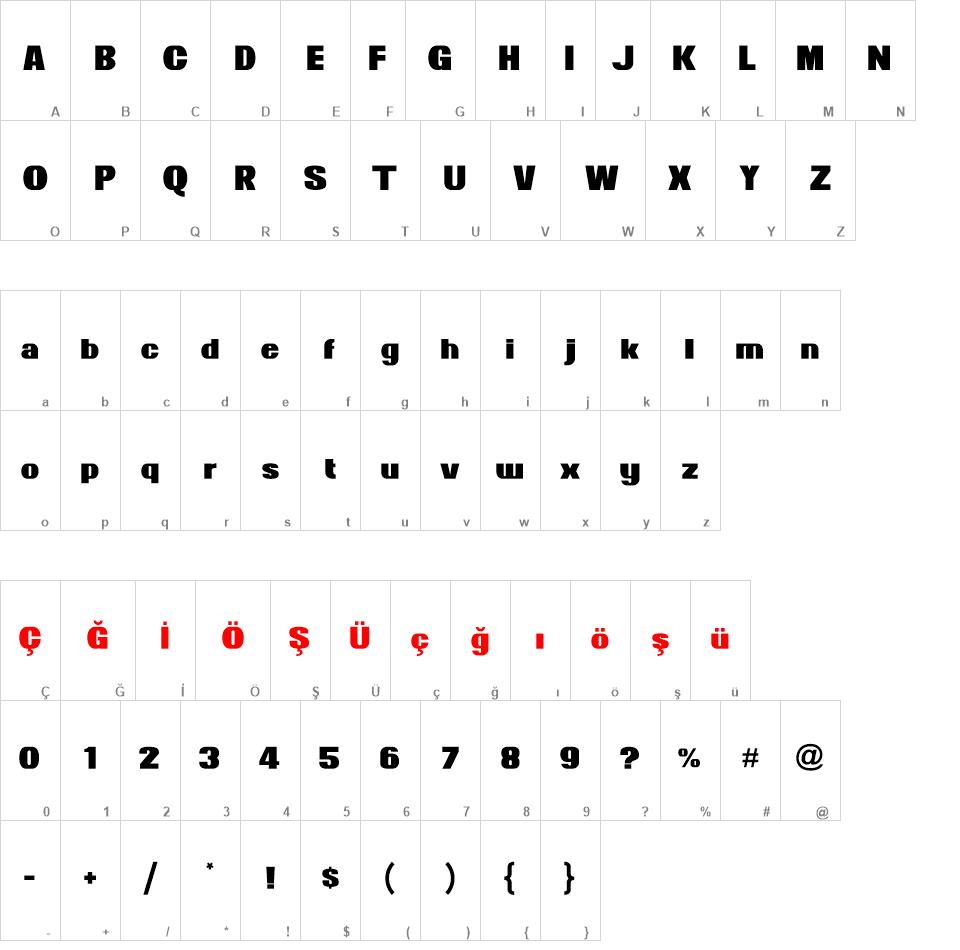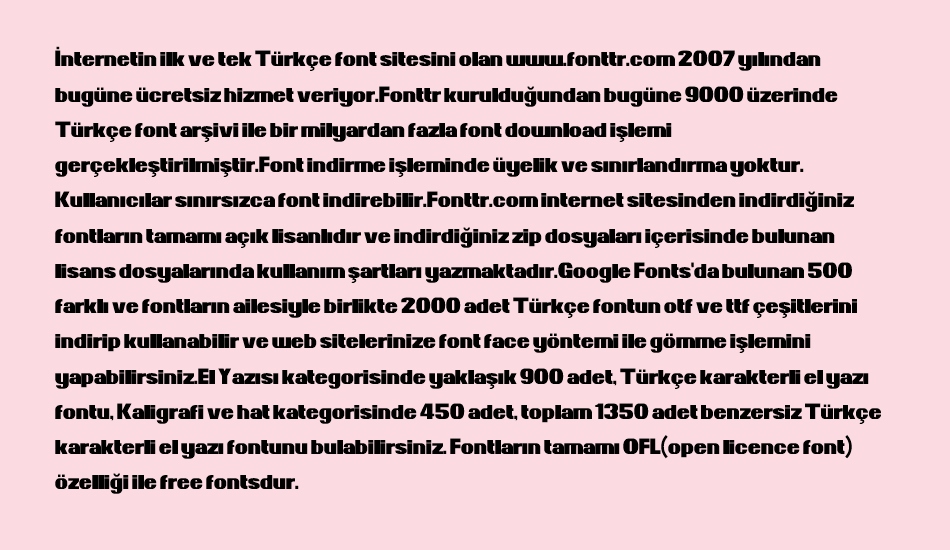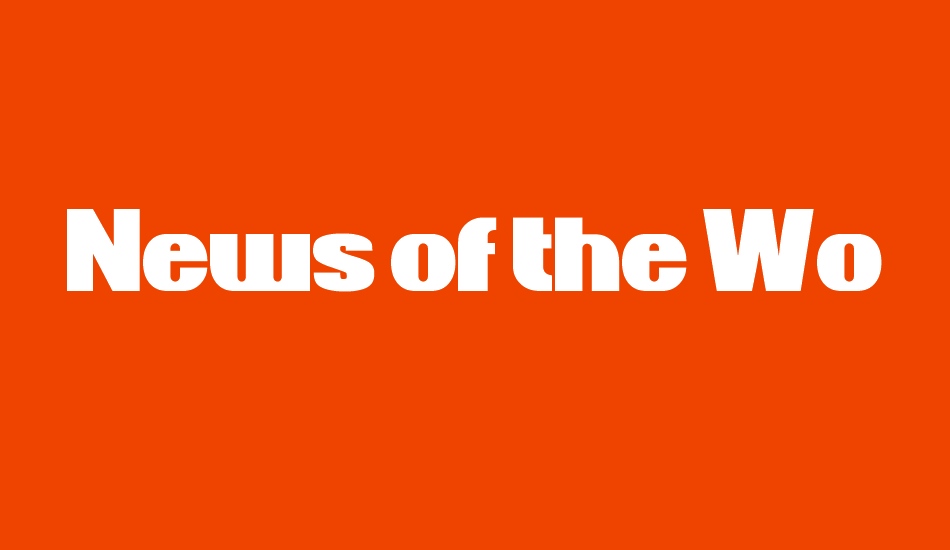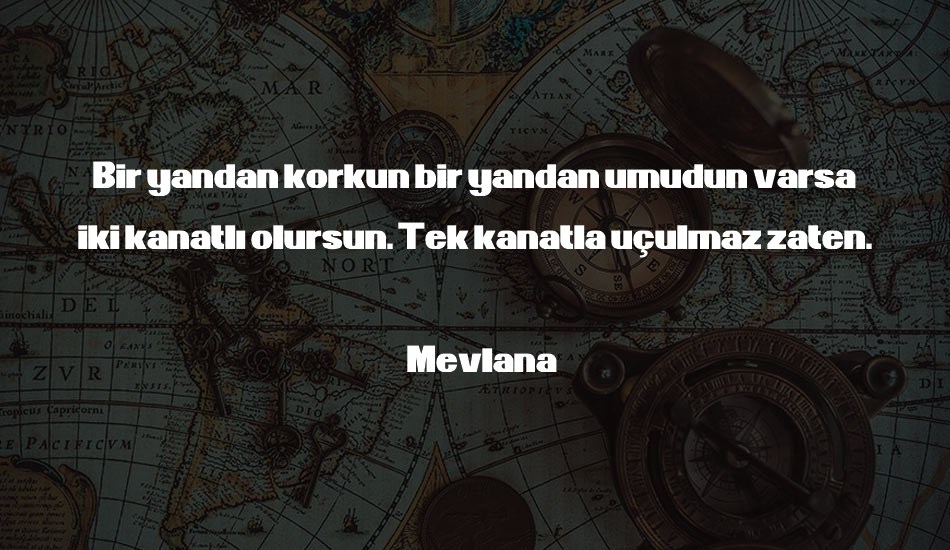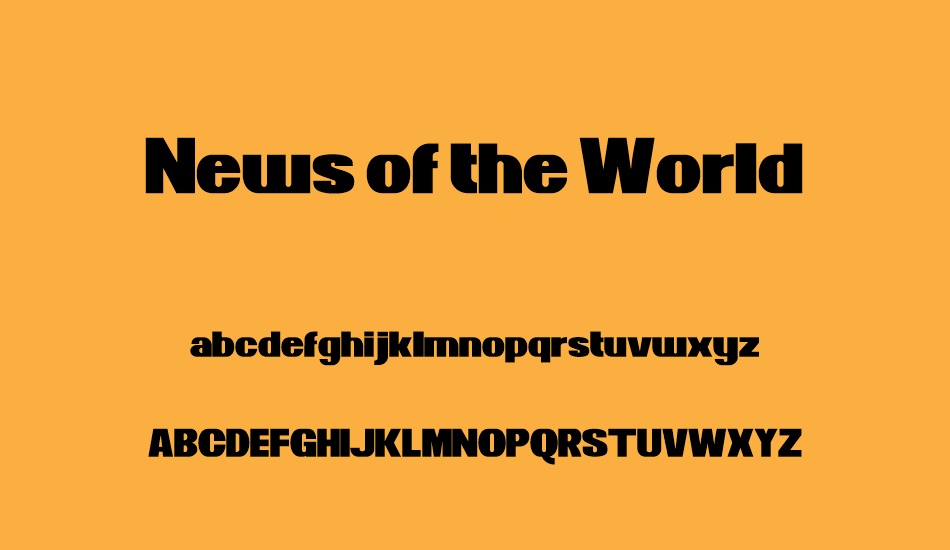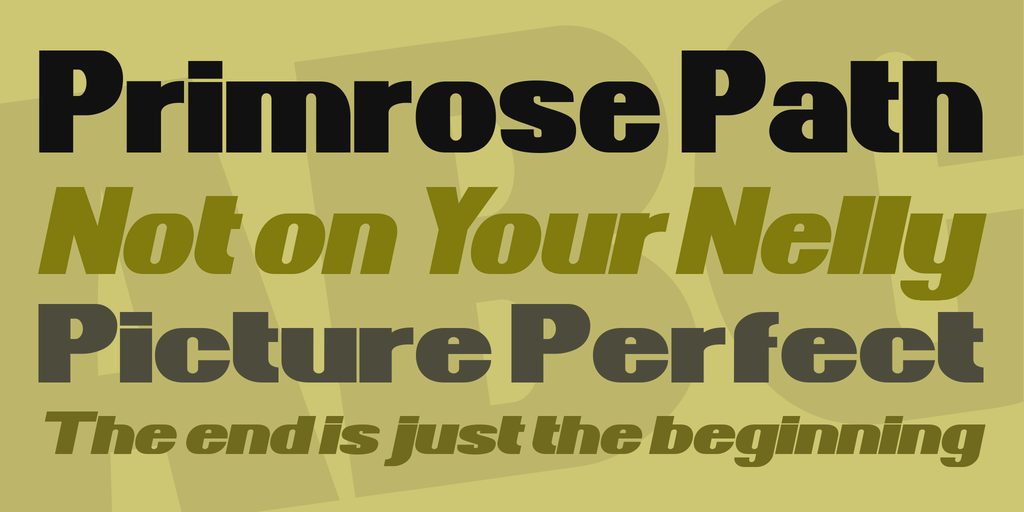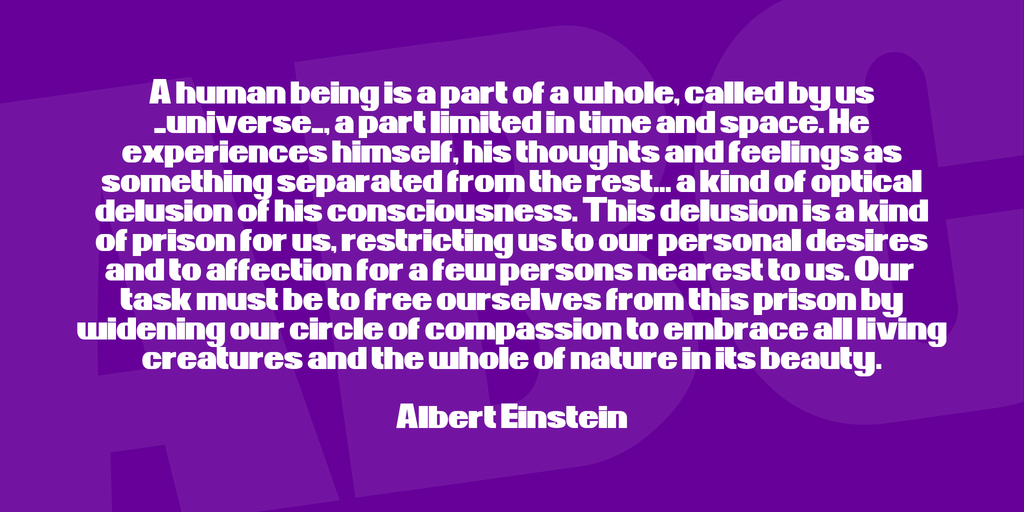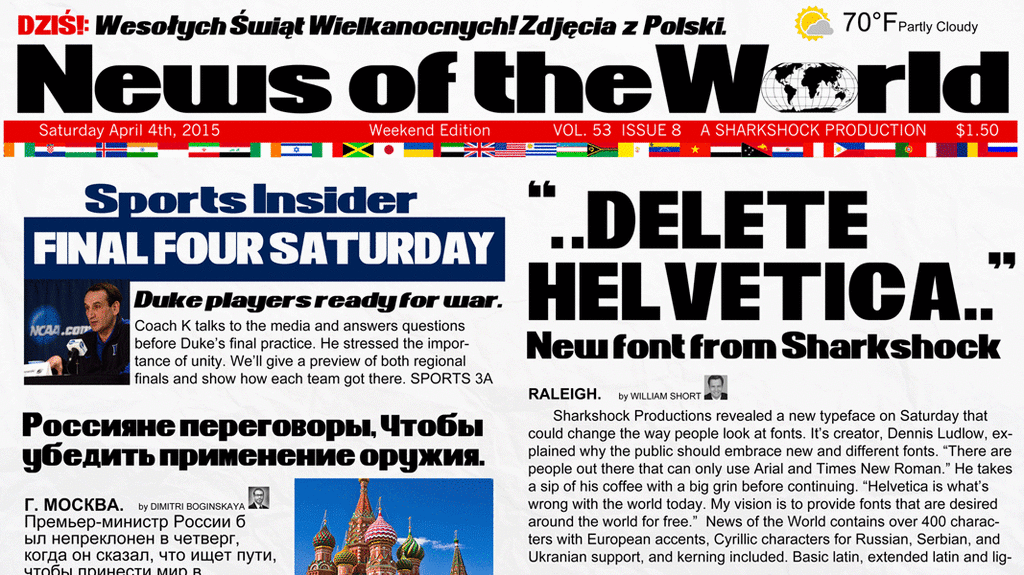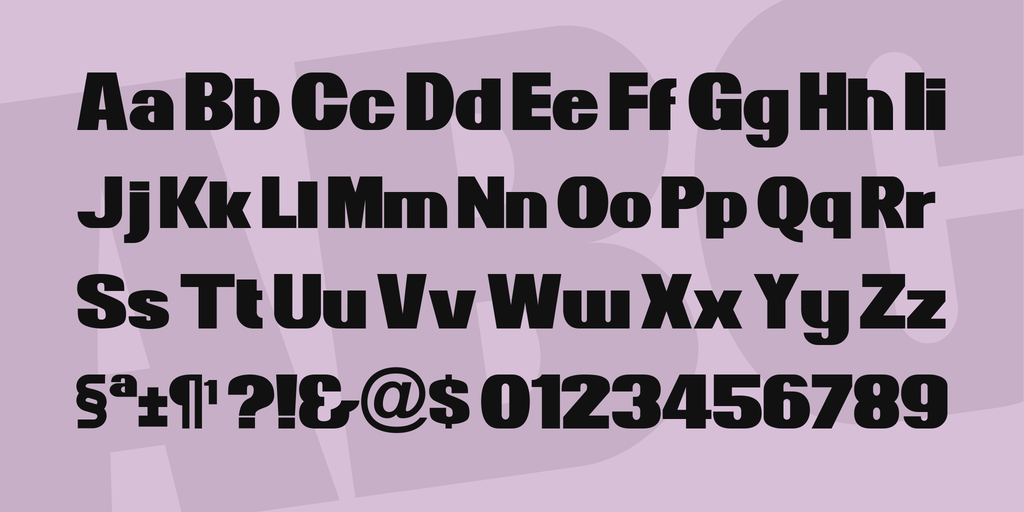
News of the World Font Family font
News of the World font
Font: News of the World (Regular, Italic, Wide, Wide Italic)
EXTRA!! Read all about it! Thanks for having a look at my latest typeface; News of the World. It features broad, strong, characters that appear to have come right off a magazine, sports
blog, or newspaper. This style demands emphasis and is sure to grab your audience's attention. 4 different styles give your works some variety. Try Regular in all caps for an eye catching
headline or wide italic for a company logo. The next time you're thinking of using Impact give this font a try.
News of the World contains basic latin, extended latin, various ligatures, Eastern European accents, kerning, and full punctuation. You can produce the globe on the regular version by keying the